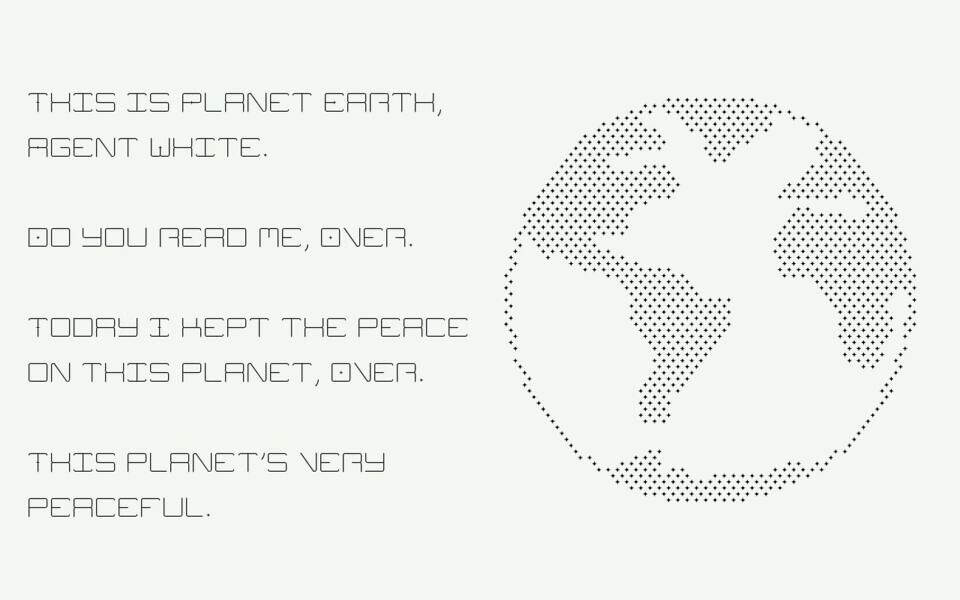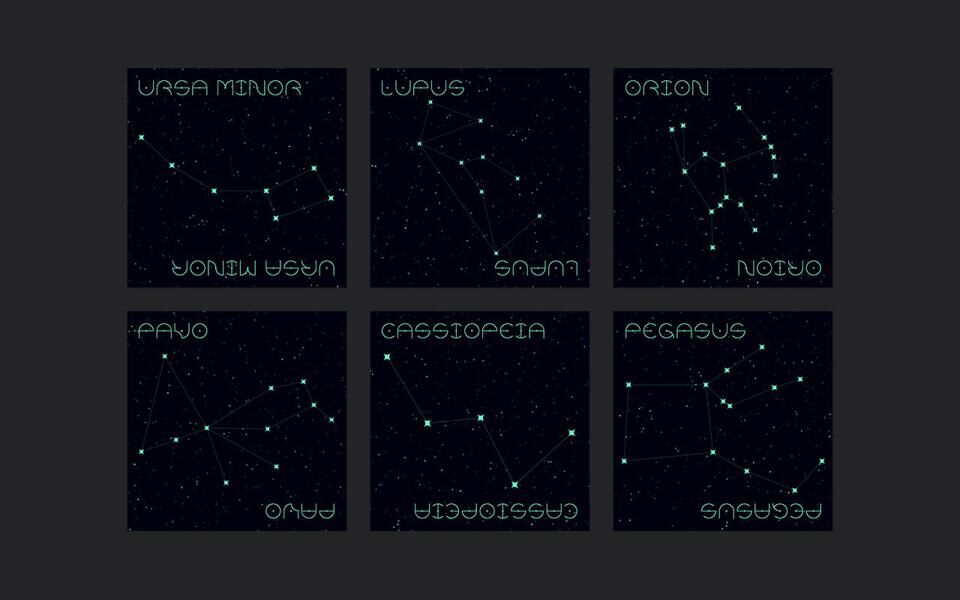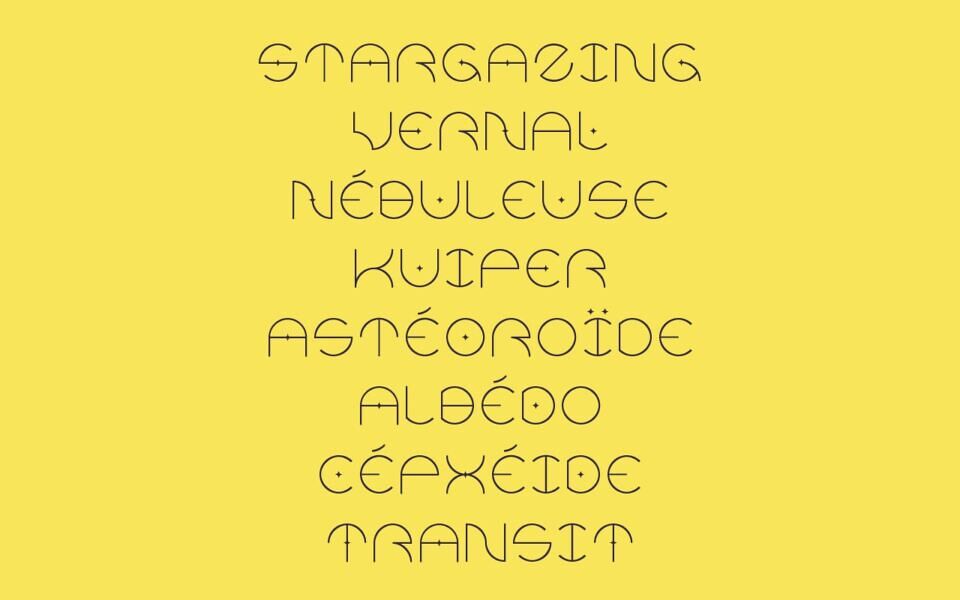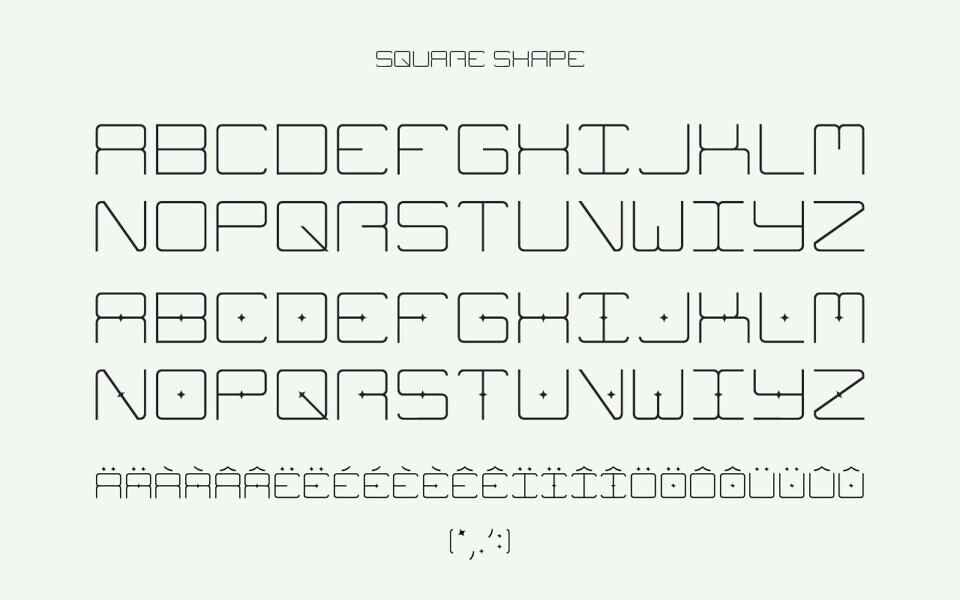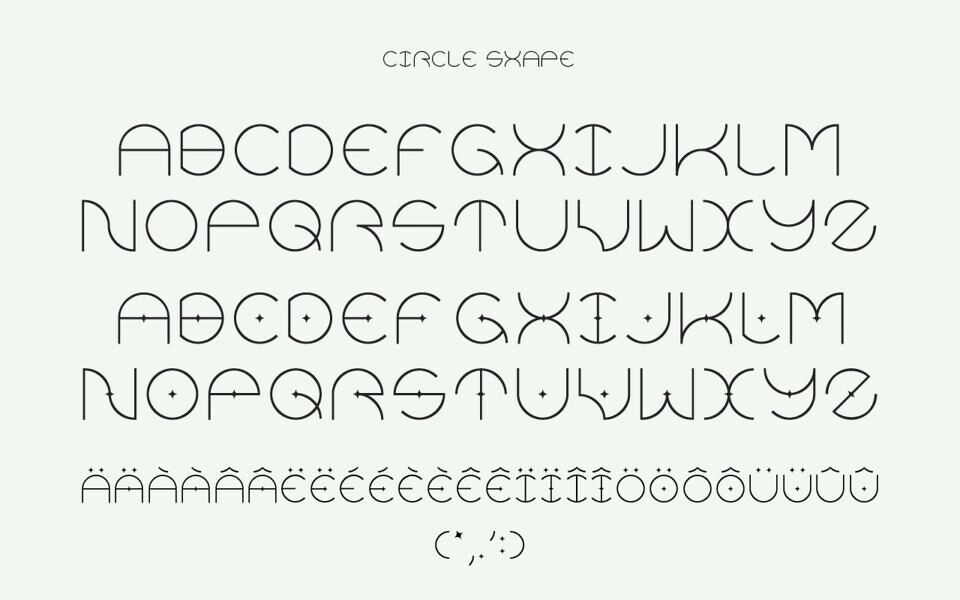
Stargaze Font
Stargaze is a free display font inspired by the vast, mysterious beauty of outer space. With two unique styles — circle and square letterforms — this font is perfect for posters, sci-fi projects, creative titles, and anything that deserves a touch of the cosmic.
Whether you’re designing an interstellar zine, a dreamy album cover, or just want your type to feel out of this world, Stargaze will take you there.
• Two distinct styles for versatile design